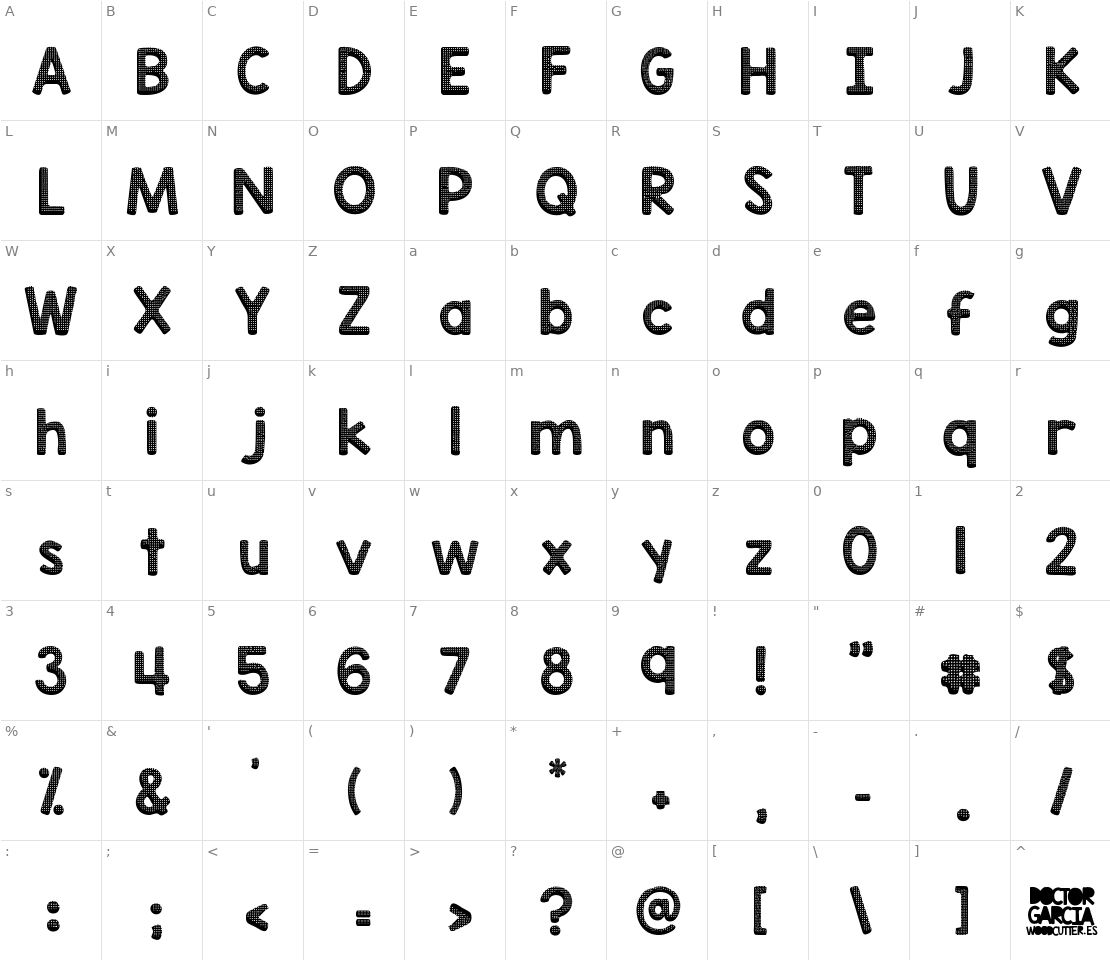
Doctor Garcia
Doctor Garcia is a bold, rounded display face from Woodcutter with a halftone dot texture baked into every letterform, giving it the grainy, ink-heavy look of old printed posters and newsprint advertising. The dots add a distinctly retro tactile quality that shines at large sizes, making it a strong pick for headlines, poster work, and packaging that wants to feel like it rolled off a vintage press.